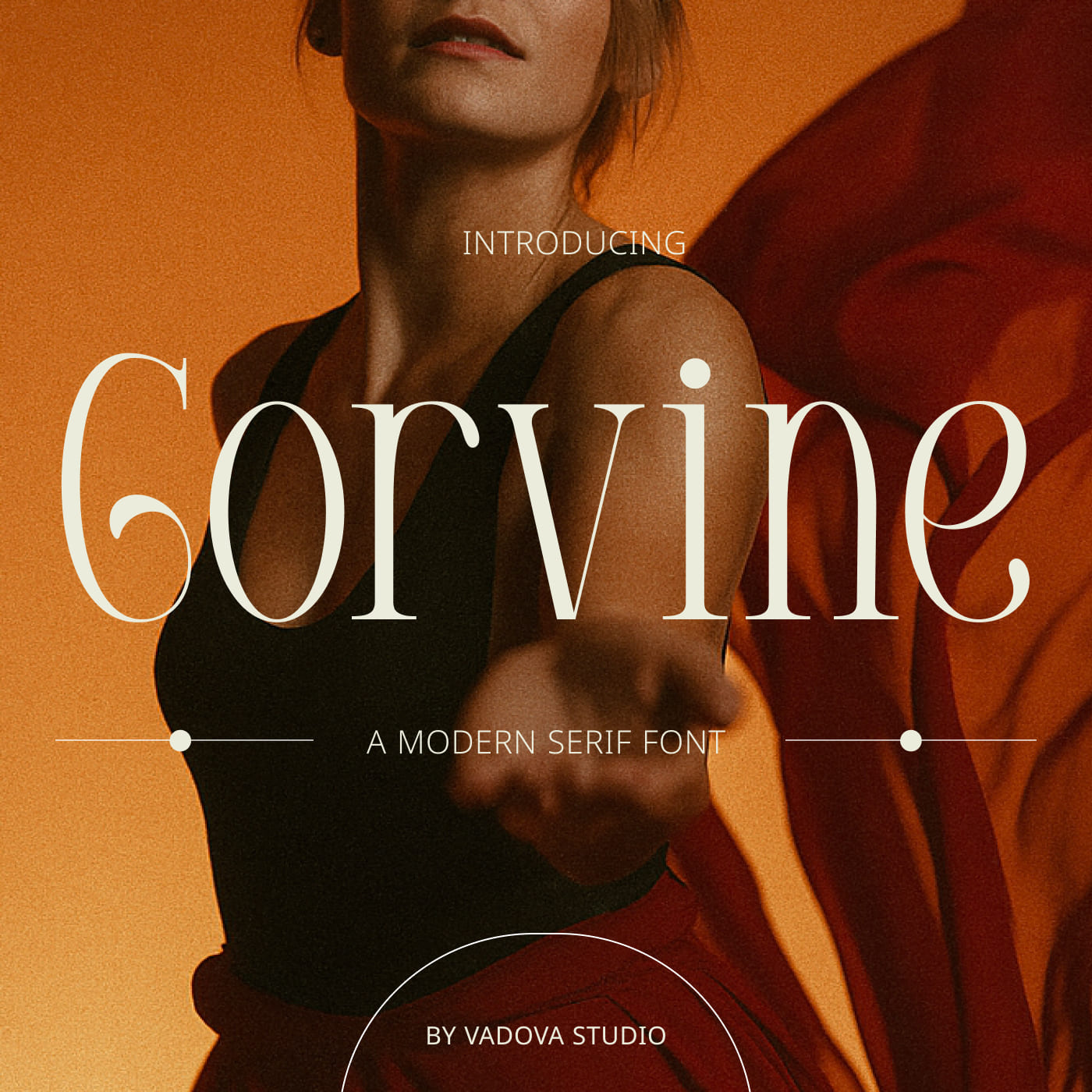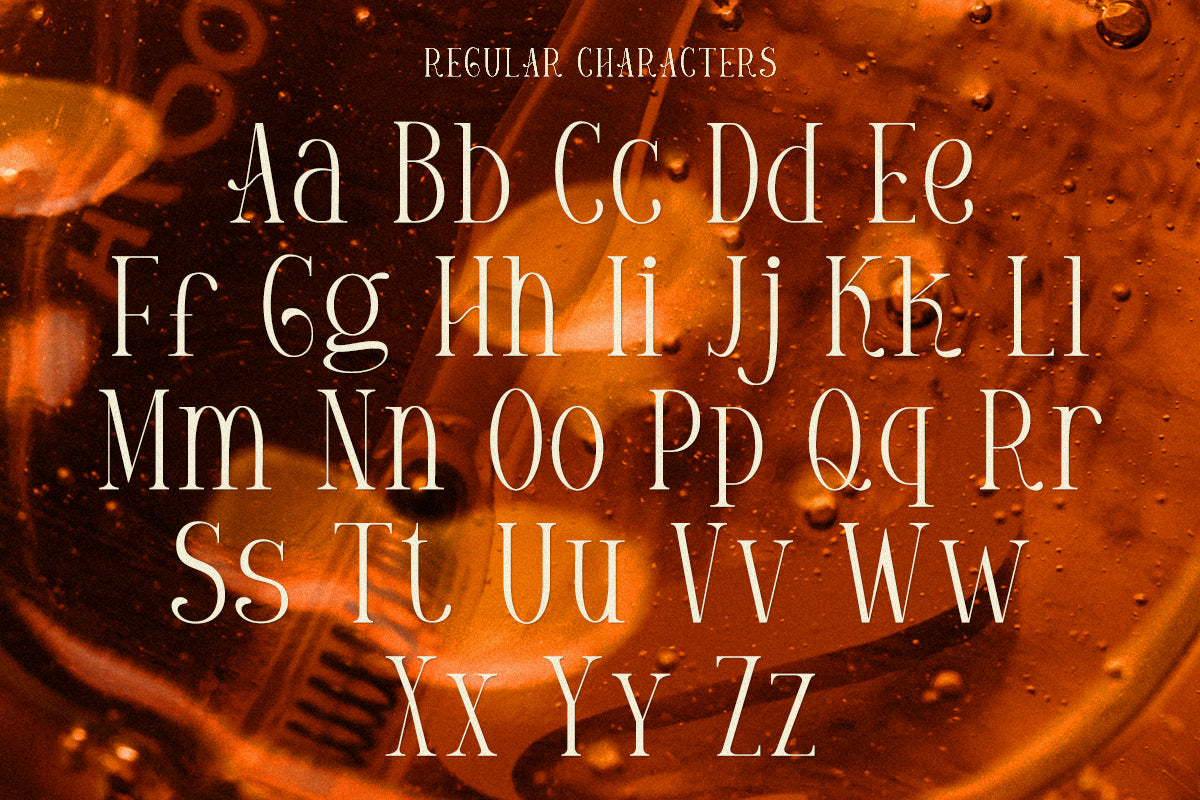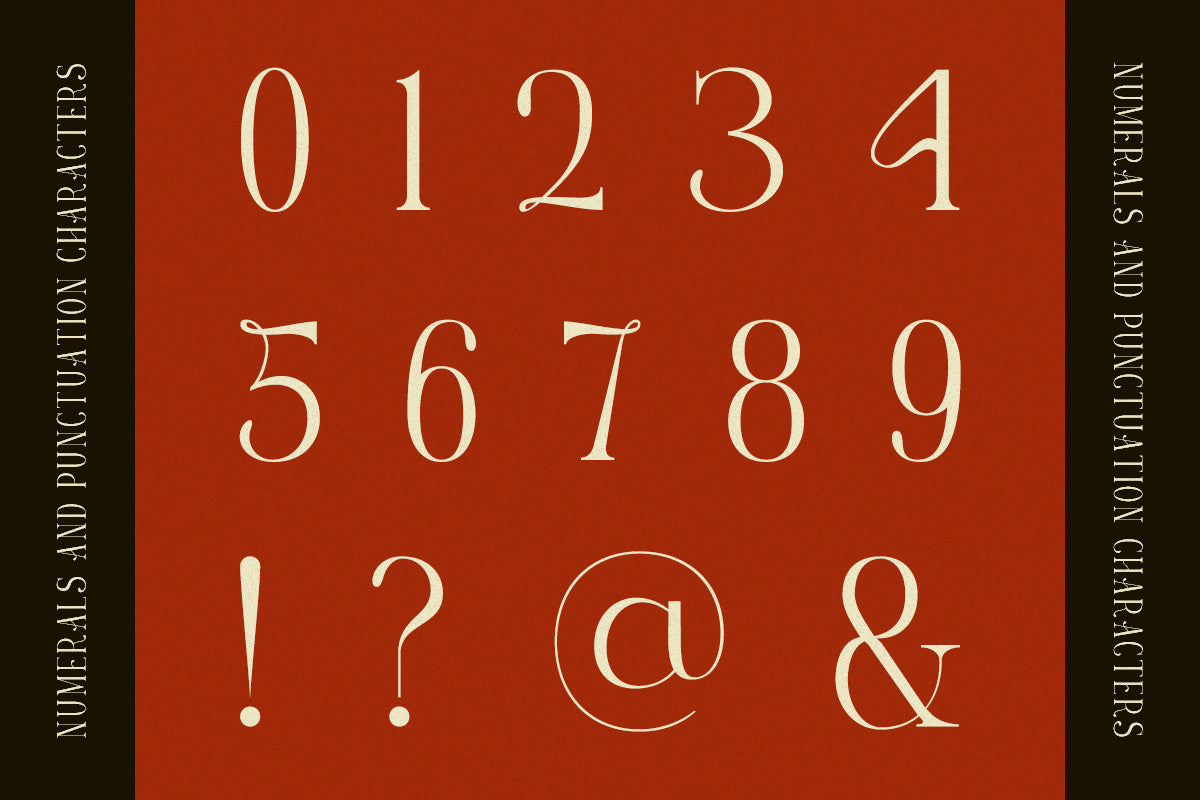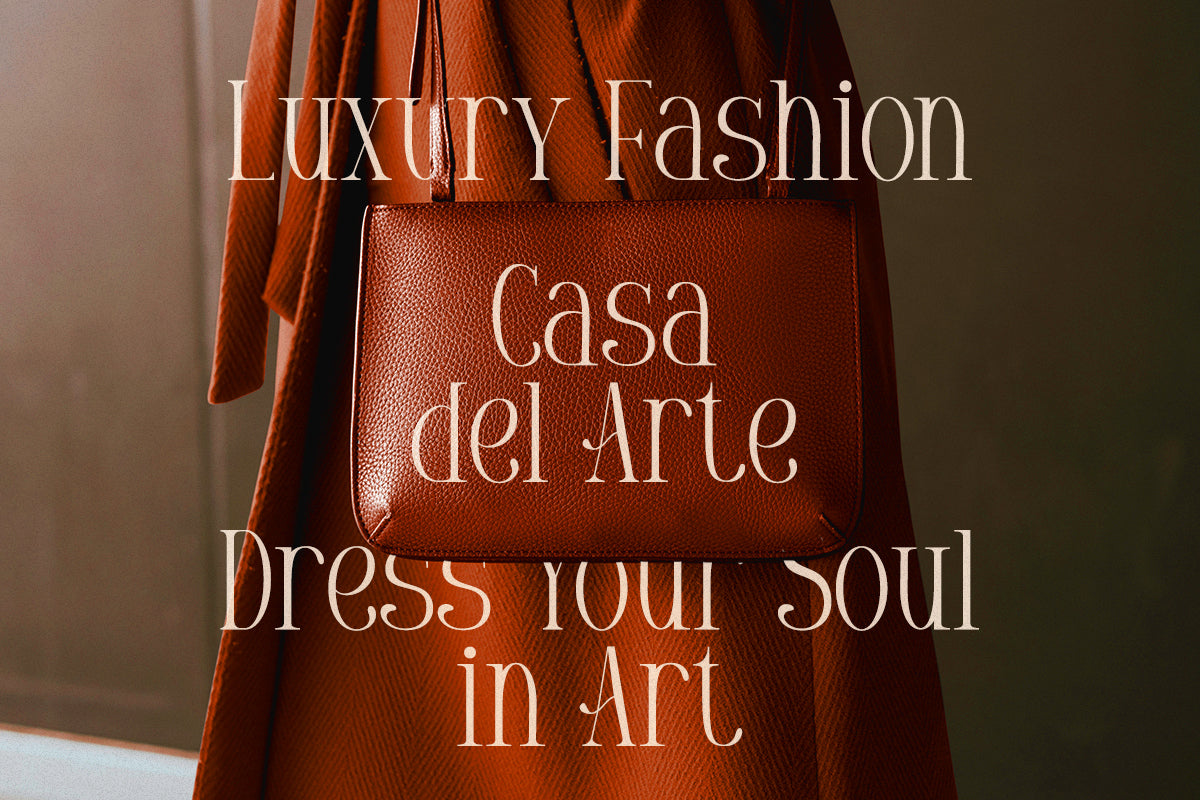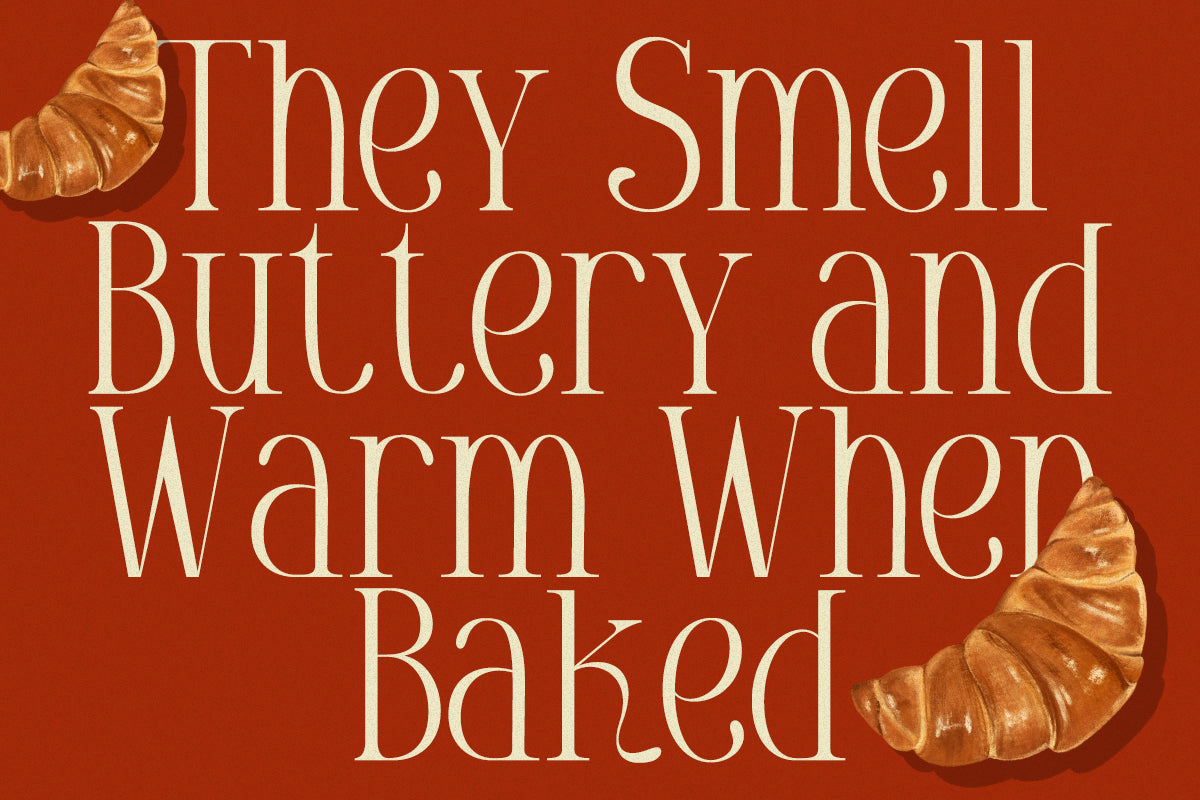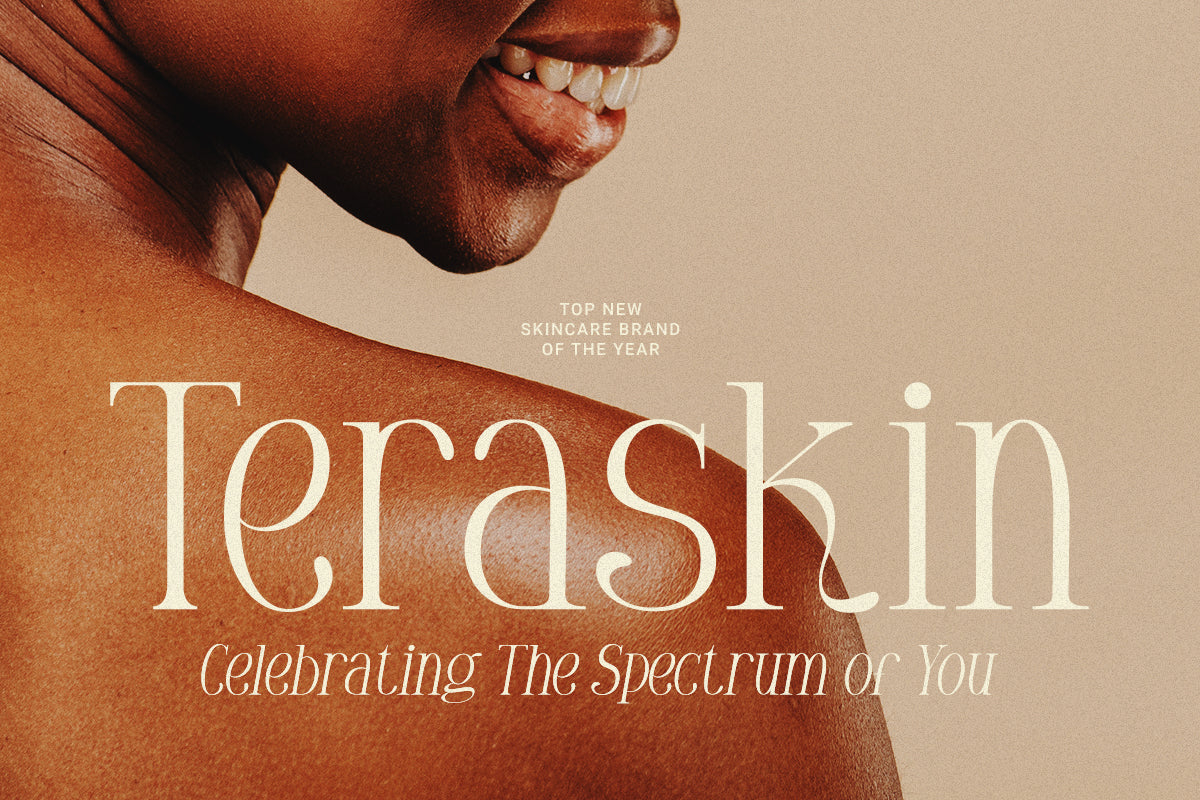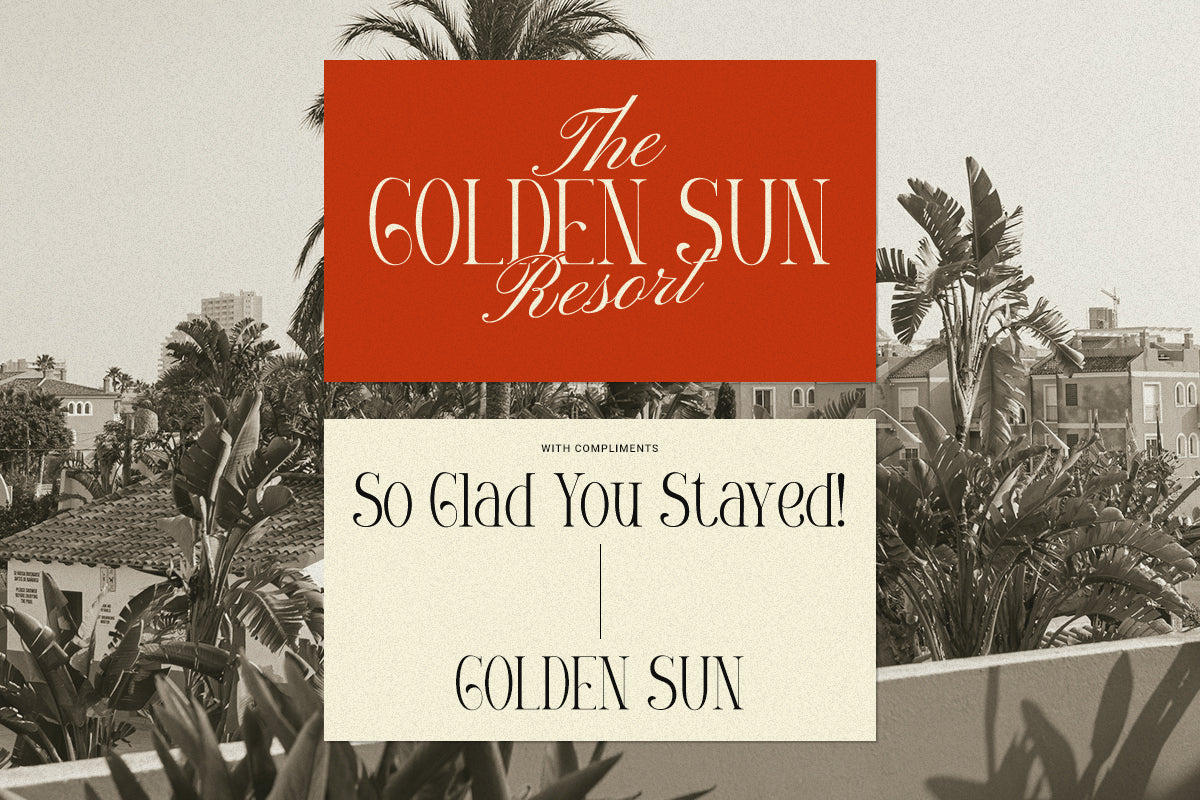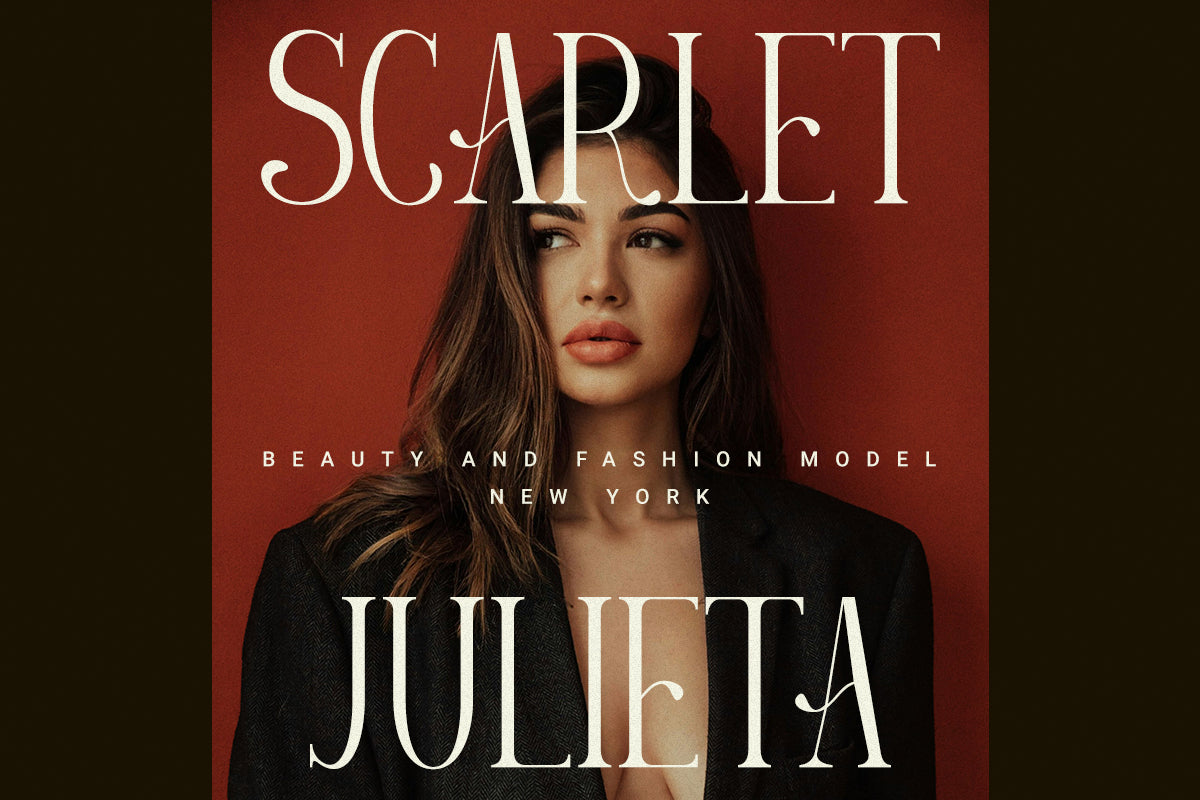
Gorvine Modern Serif Font
Gorvine Elegant Serif Font, a modern font perfect for adding elegance and style to your projects. Whether it’s for quotes, logotypes, magazine headers, or more, this versatile typeface ensures your text stands out beautifully. Suitable for Luxury branding, fashion magazines, editorial design, wedding invitations, high-end product packaging, beauty advertisements, jewellery branding, perfume labels, elegant website headers, boutique branding, upscale restaurant menus, art gallery promotions, exclusive event branding, sophisticated book covers, premium cosmetics, high-fashion photography watermarks, fine art prints, literary journal titles, prestige automotive brochures, bespoke service branding
Gorvine Modern Serif Font is a serif typeface available in TTF, OTF, and WOFF formats, including uppercase and lowercase characters, numerals, and punctuation.